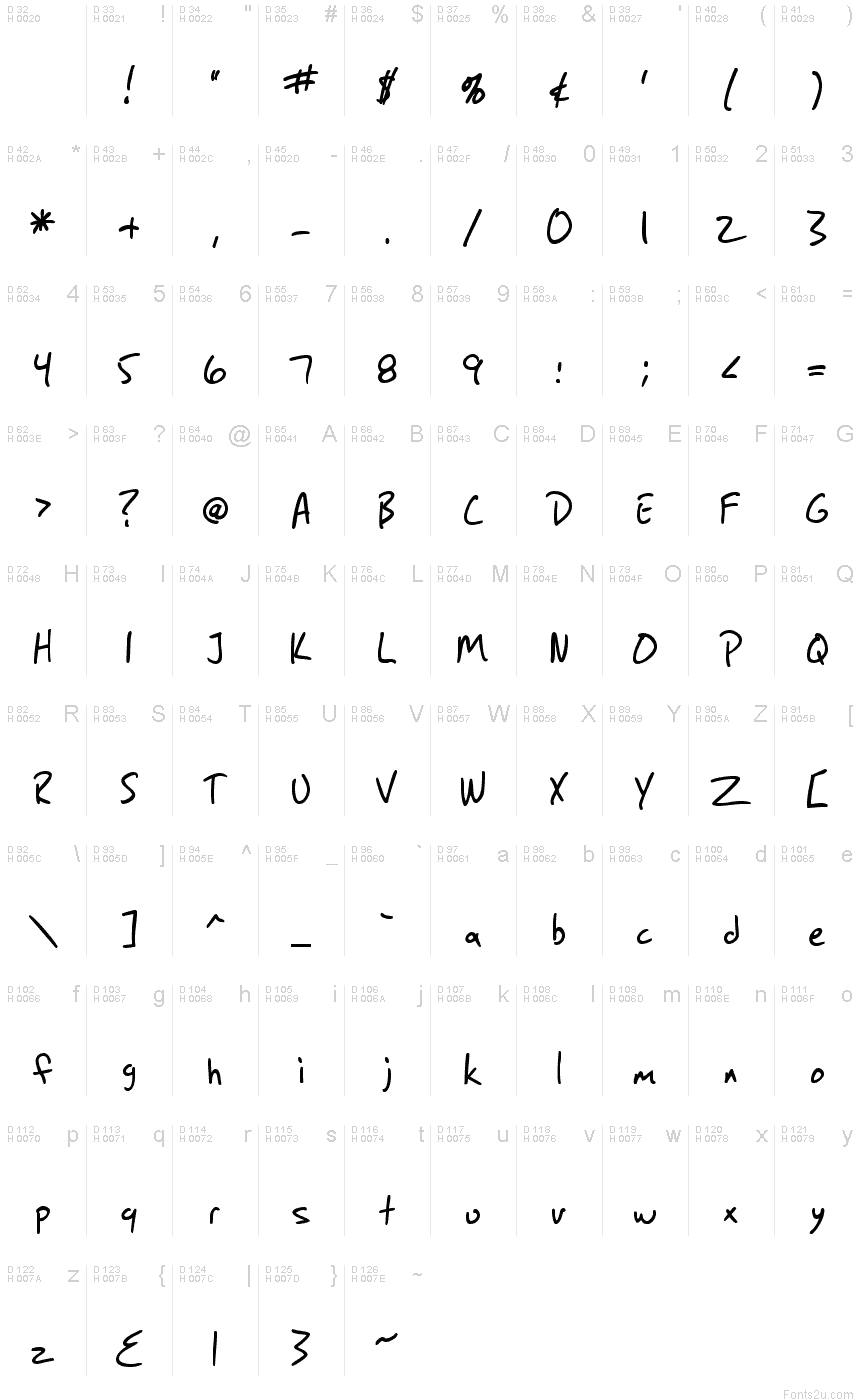
SF Grunge Sans
SF Grunge Sans by ShyFoundry is a free handwritten font with a loose, marker-drawn rhythm. The letters feel quick and human, with rounded strokes, uneven joins, and a slightly scruffy edge that gives the name its grunge slant without turning rough or distressed.
It fits posters, zines, indie packaging, casual branding, book covers, and social graphics where you want lettering to feel made by hand instead of set. As a free font, it also suits short headlines, title cards, and pull quotes, since the broad, open shapes keep the mood direct and personal.